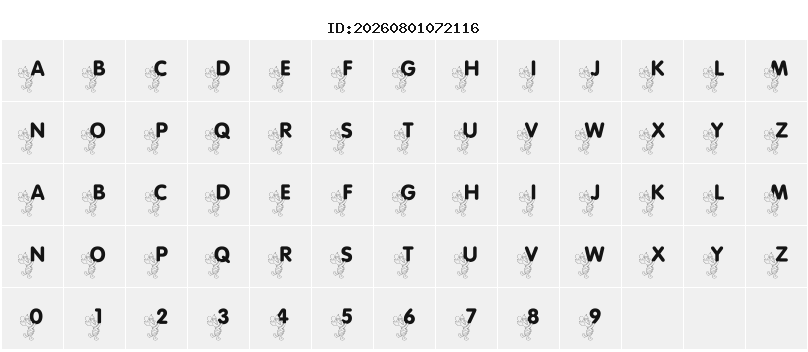
• Font Name: LMS Pigglet's Luck Of The Irish
• Full Font Name: LMS Pigglet's Luck Of The Irish
About LMS Pigglet's Luck Of The Irish.ttf
LMS Pigglet's Luck Of The Irish.ttf is a modern, elegant sans-serif font designed for ultimate readability and visual harmony. Perfect for branding, headlines, web design, and print materials.